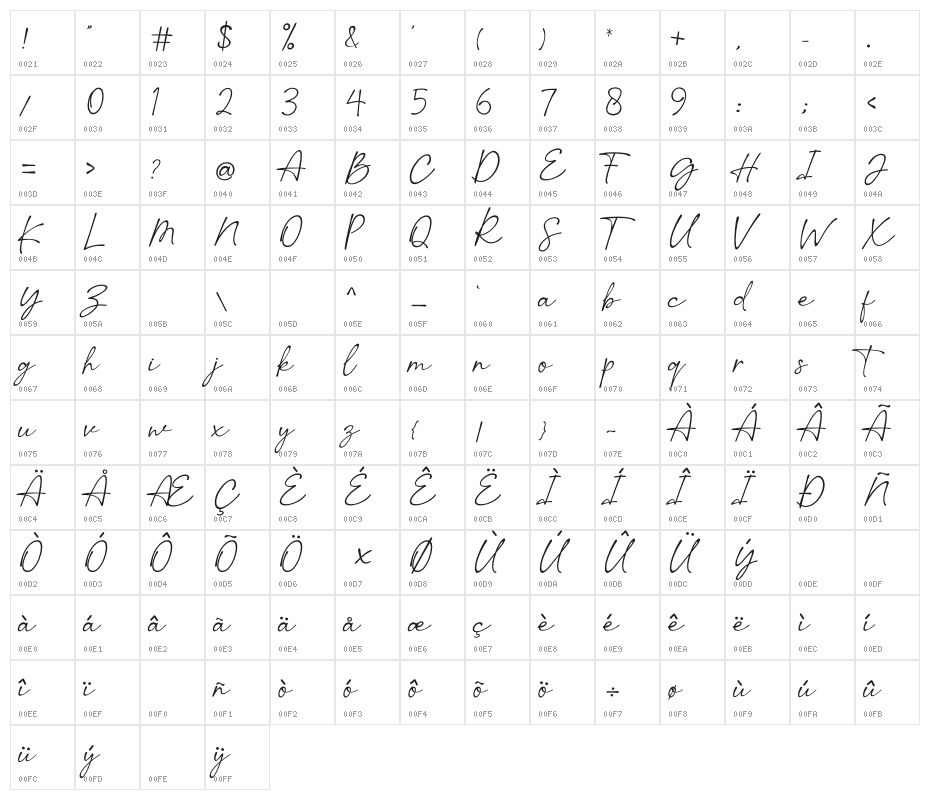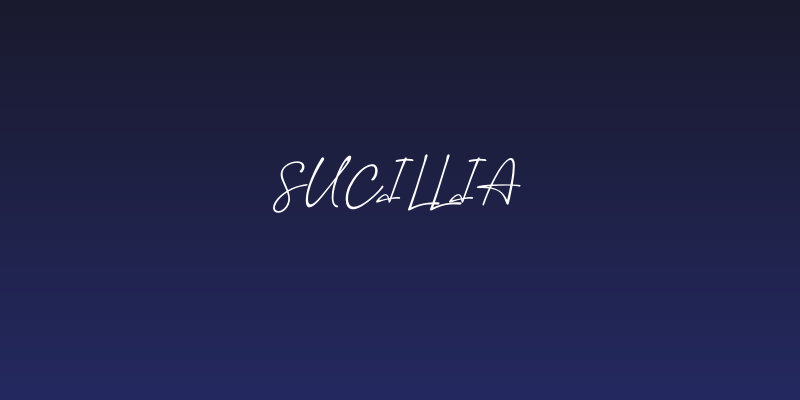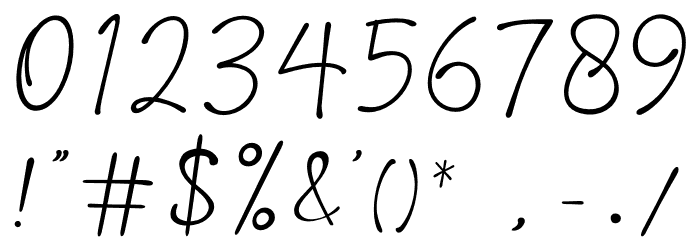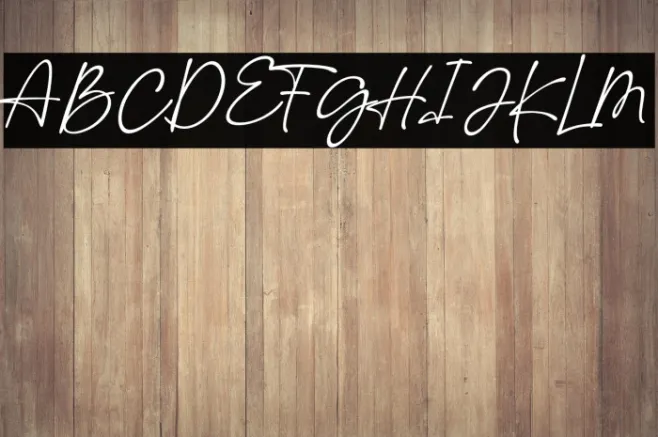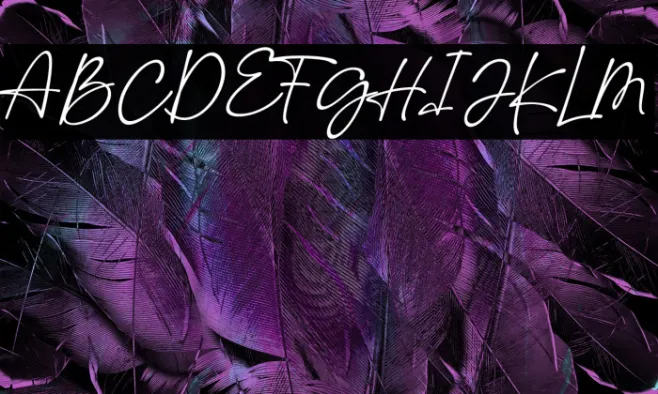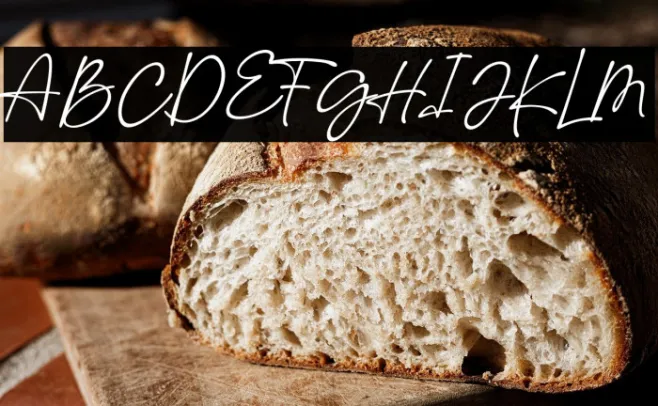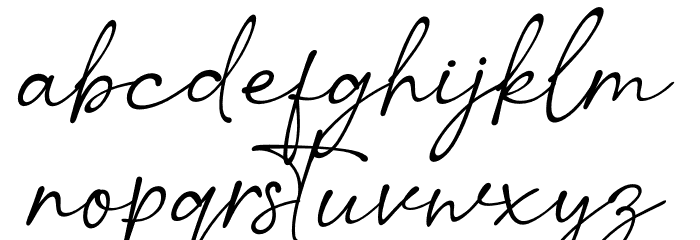
Sucillia Font
Sucillia Description
This font exudes a casual elegance with its flowing, handwritten style. The letters are connected in a smooth, cursive manner, giving it a personal and intimate feel. The uppercase letters are slightly more structured, while the lowercase letters maintain a consistent fluidity. The numbers and special characters complement the alphabet with their cohesive design. The overall appearance is both sophisticated and approachable, making it suitable for a variety of creative applications. The strokes are consistent in thickness, providing a balanced and harmonious look.
| Proposed Projects | Ideal for wedding invitations, personal branding, greeting cards, and social media graphics. |